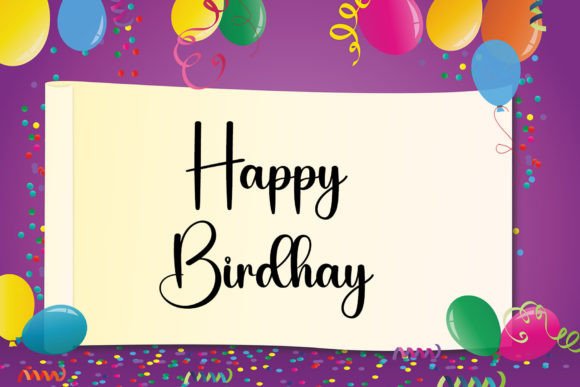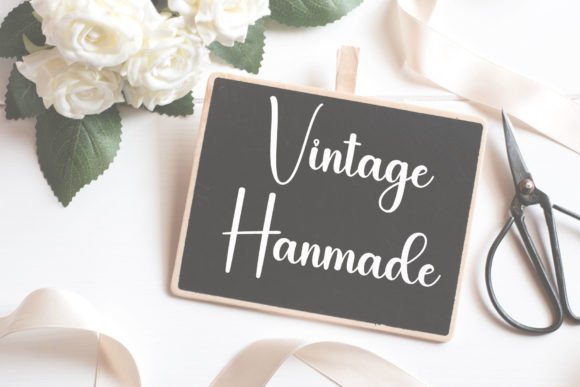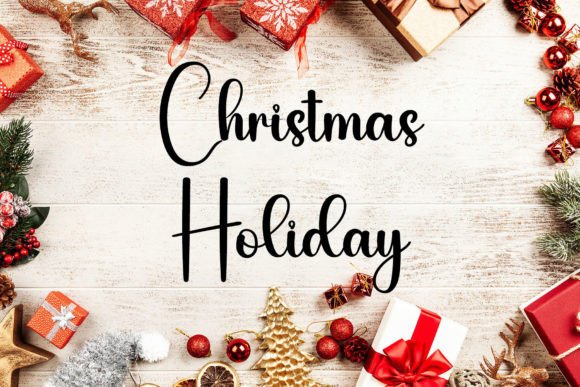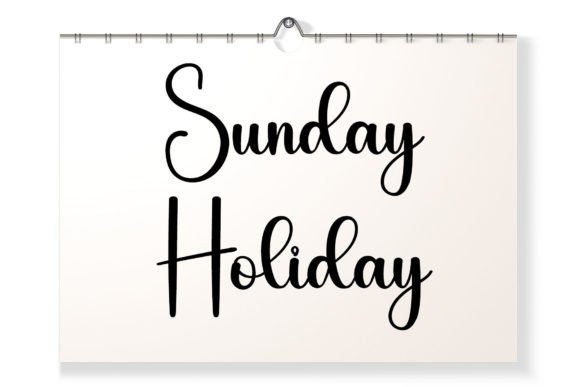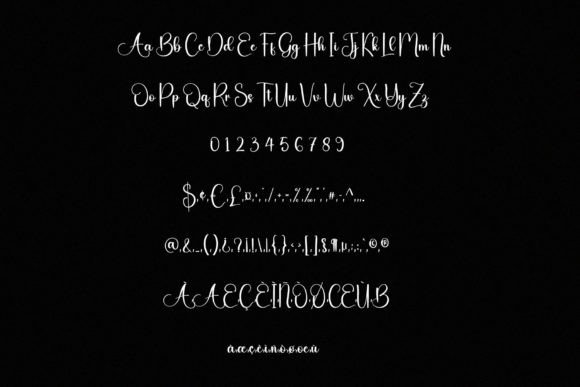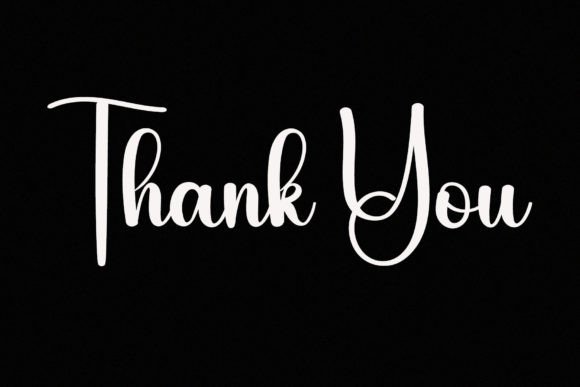
Balantha Font
About Balantha Font
“Balantha” is introduced as a sweet and beautiful handwritten font with characters that dance along the baseline, creating a charming and dynamic appearance. This font is carefully crafted to bring a sense of sweetness and a luxurious spark to any design project you decide to pursue.
The sweetness and beauty of “Balantha” make it versatile for various creative applications. Whether you’re working on invitations, branding materials, posters, or any project that could benefit from a delightful and playful aesthetic, this font adds a touch of luxury.
The mention of characters dancing along the baseline implies a dynamic and whimsical quality, contributing to the unique and lively nature of the font. This characteristic makes “Balantha” an excellent choice for projects where you want to infuse a sense of movement and joy.
The promise of adding a luxury spark to design projects suggests that “Balantha” can elevate the overall aesthetic and bring a sense of sophistication to your creations.
In summary, “Balantha” is a sweet and beautiful handwritten font designed to add a luxurious spark to your design projects. Embrace its distinctive characters and playful baseline, and let it infuse your designs with charm, sweetness, and a touch of elegance.